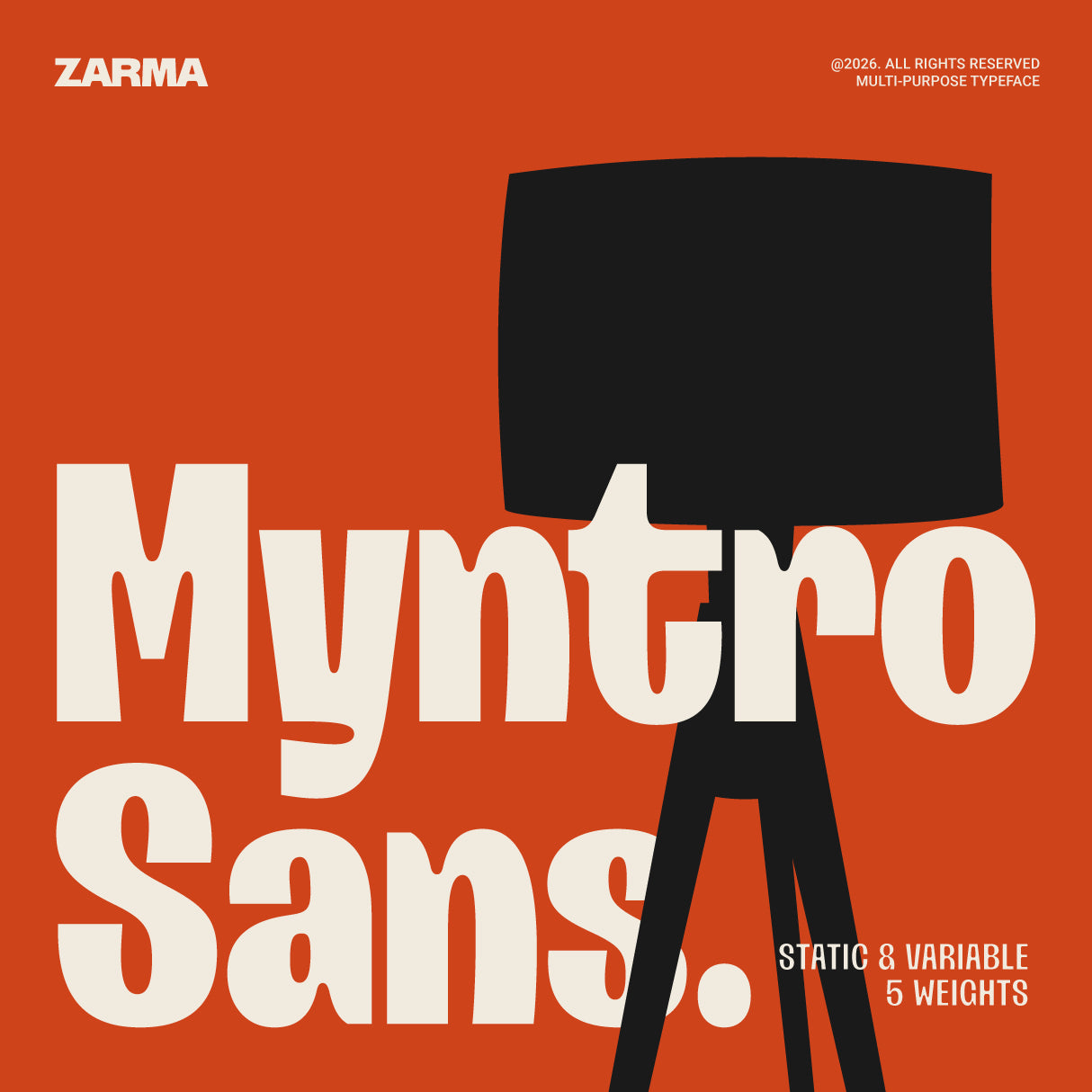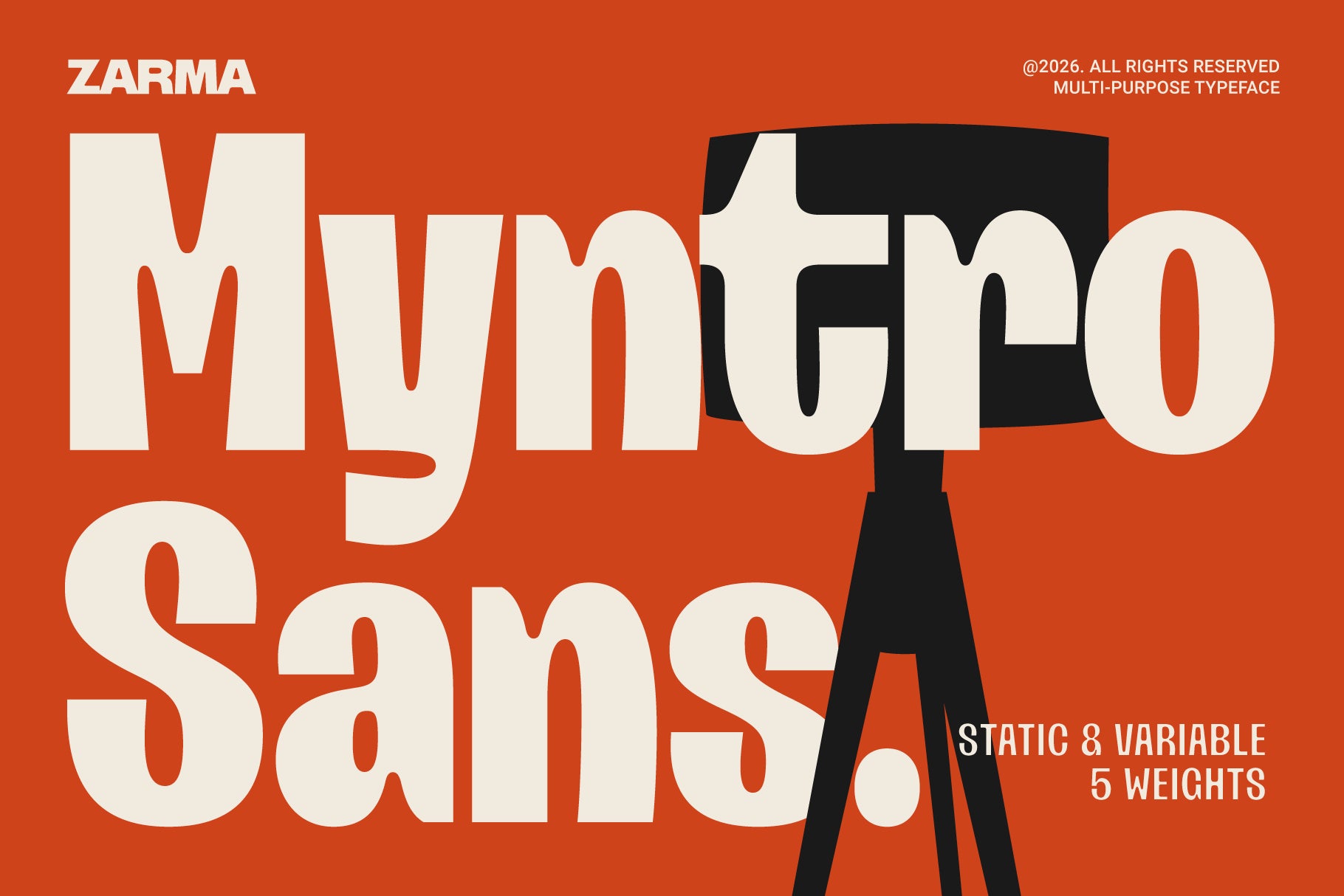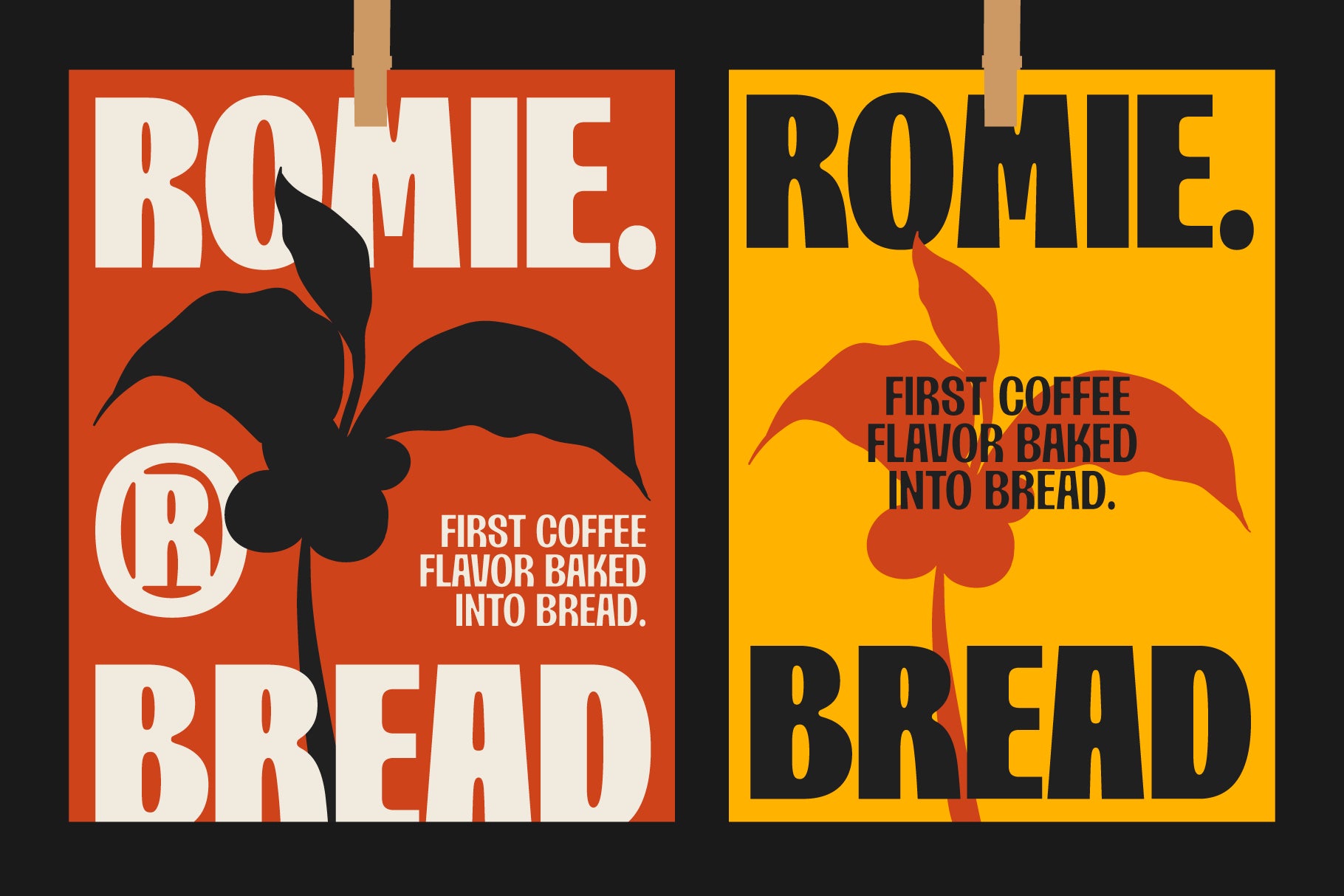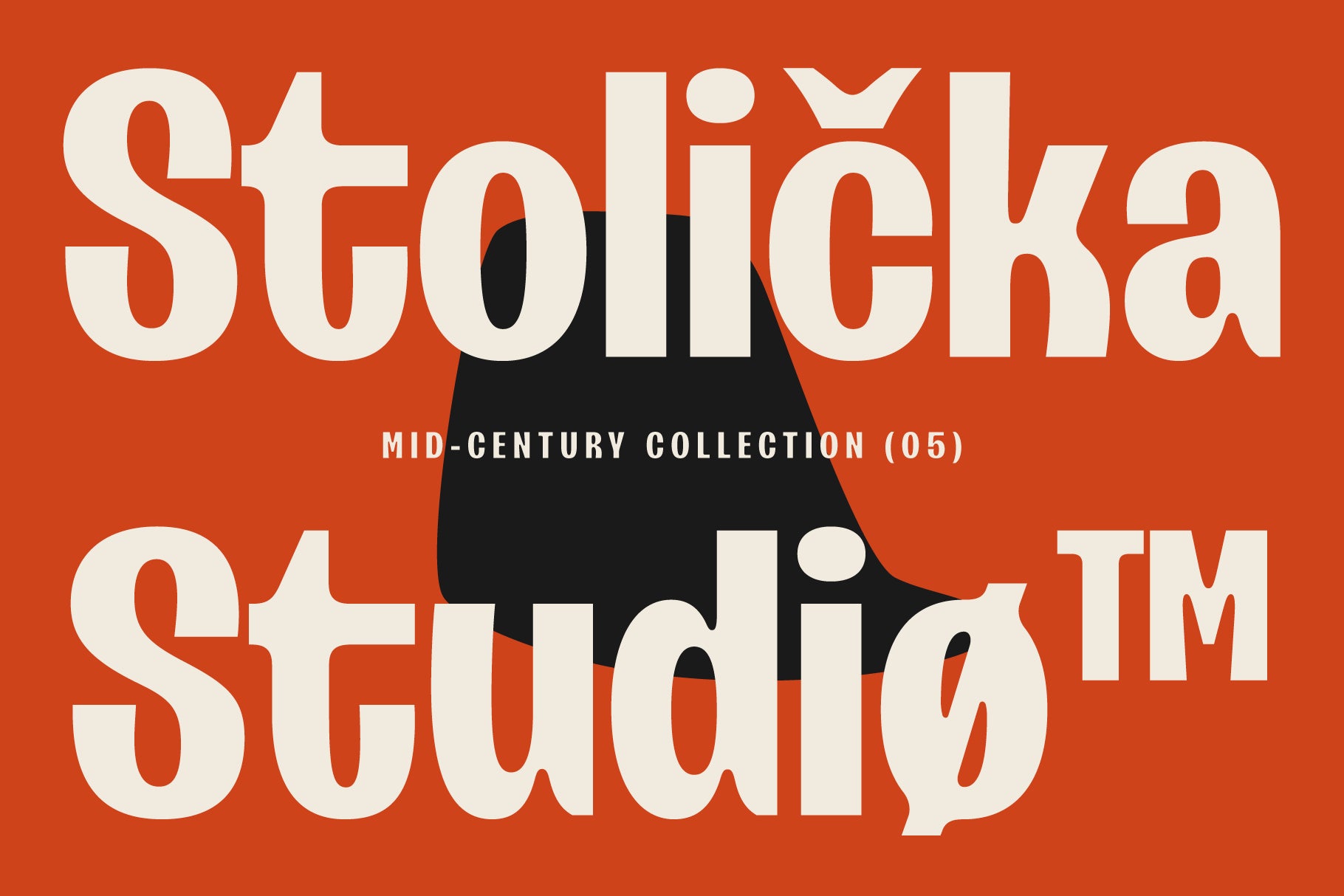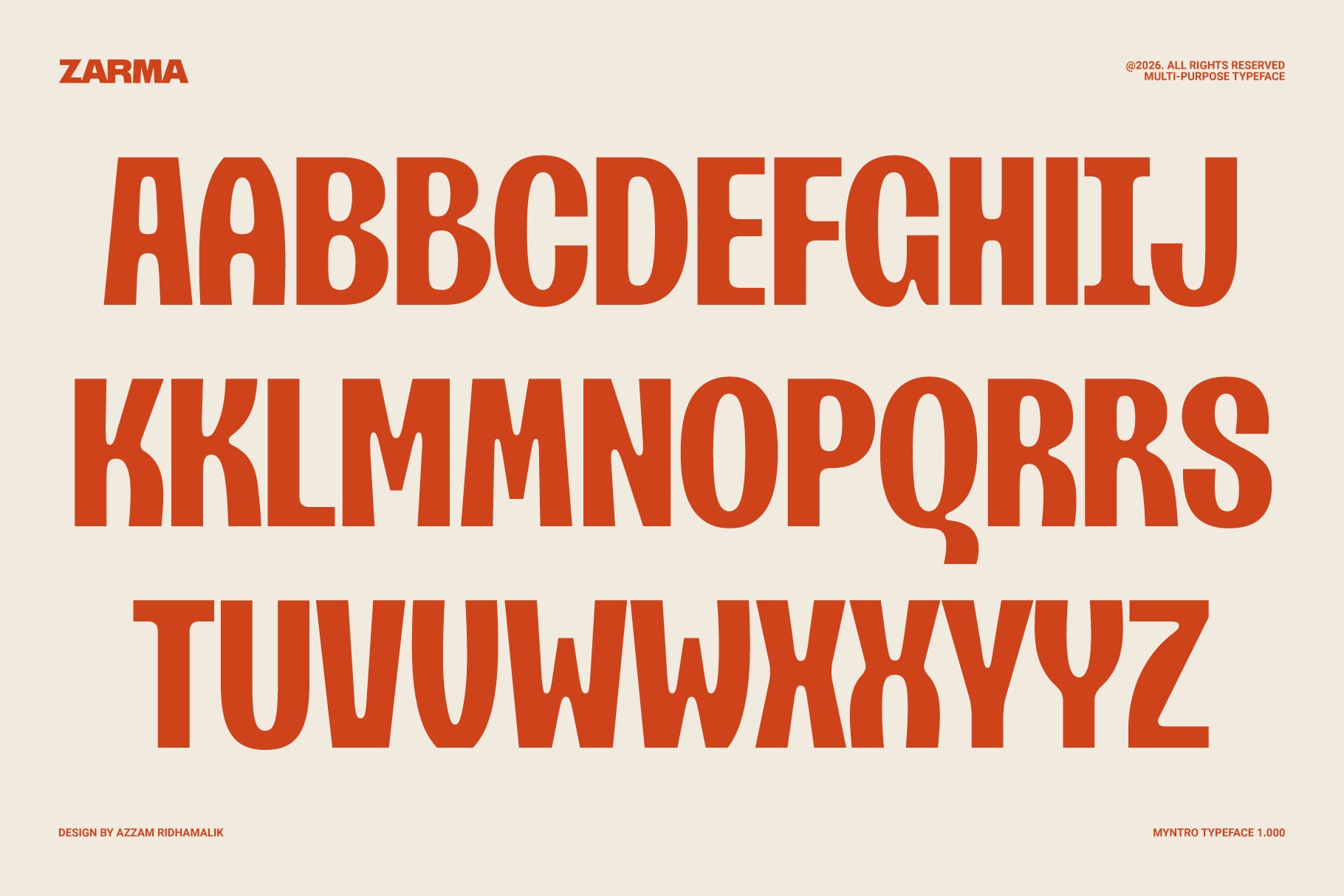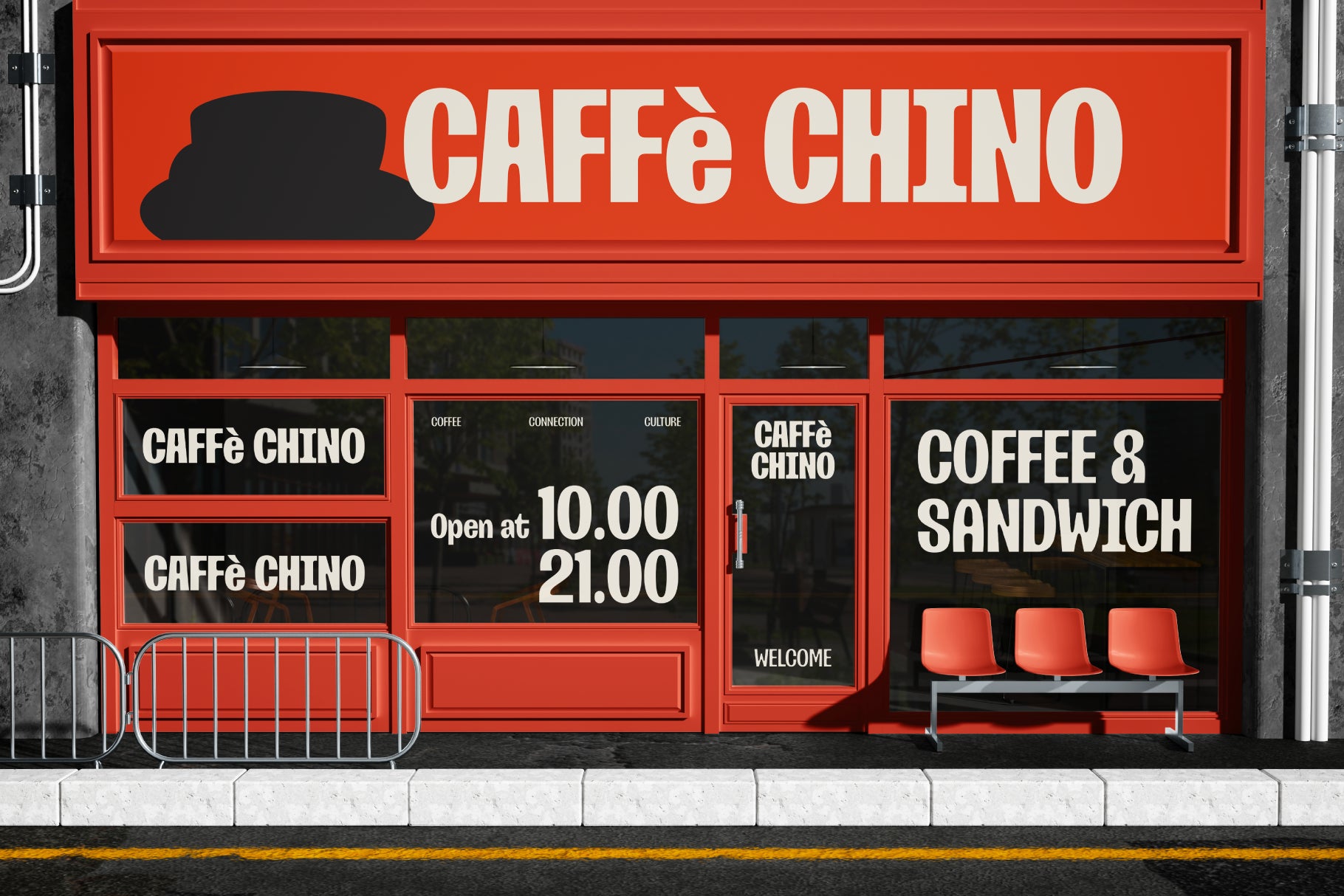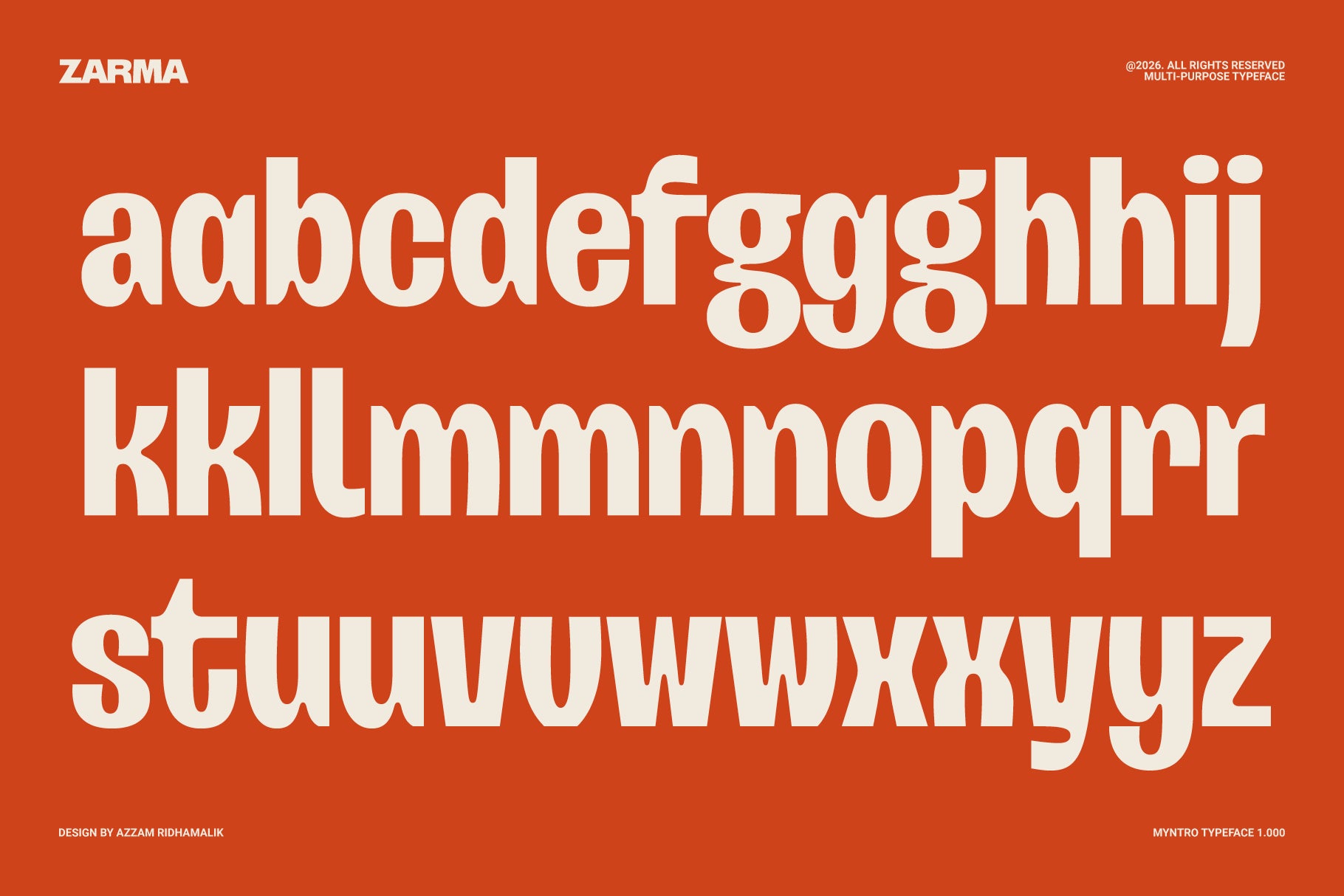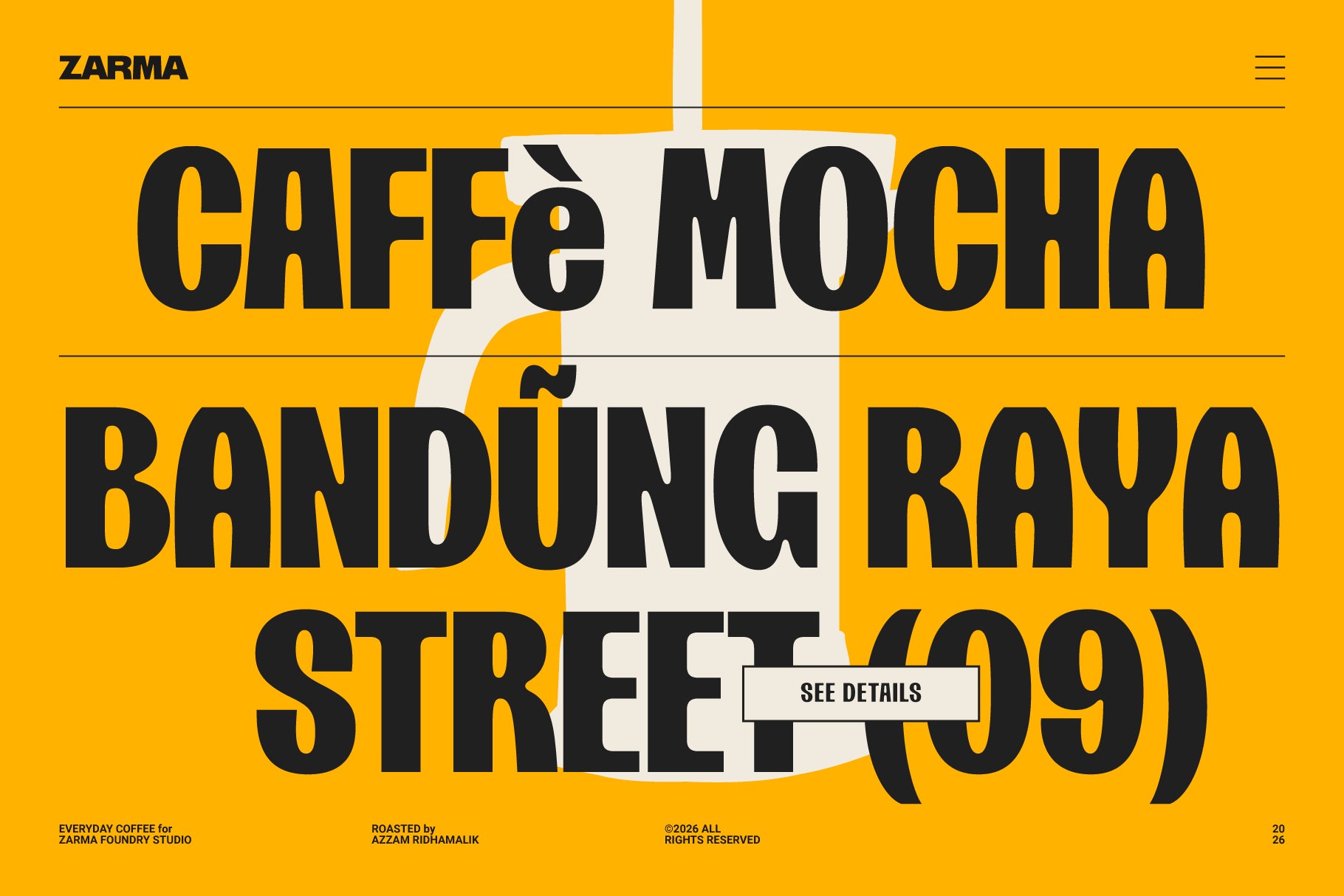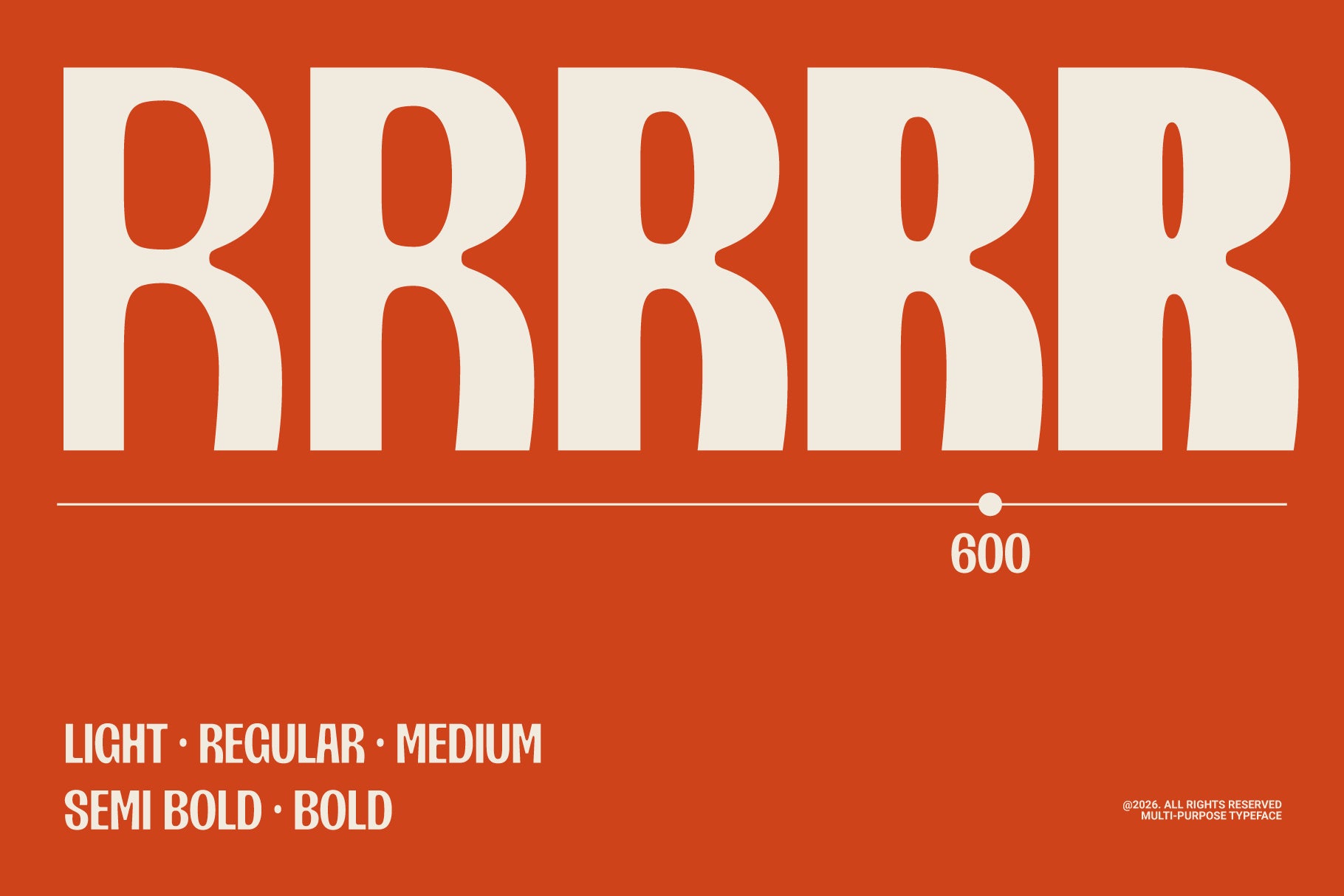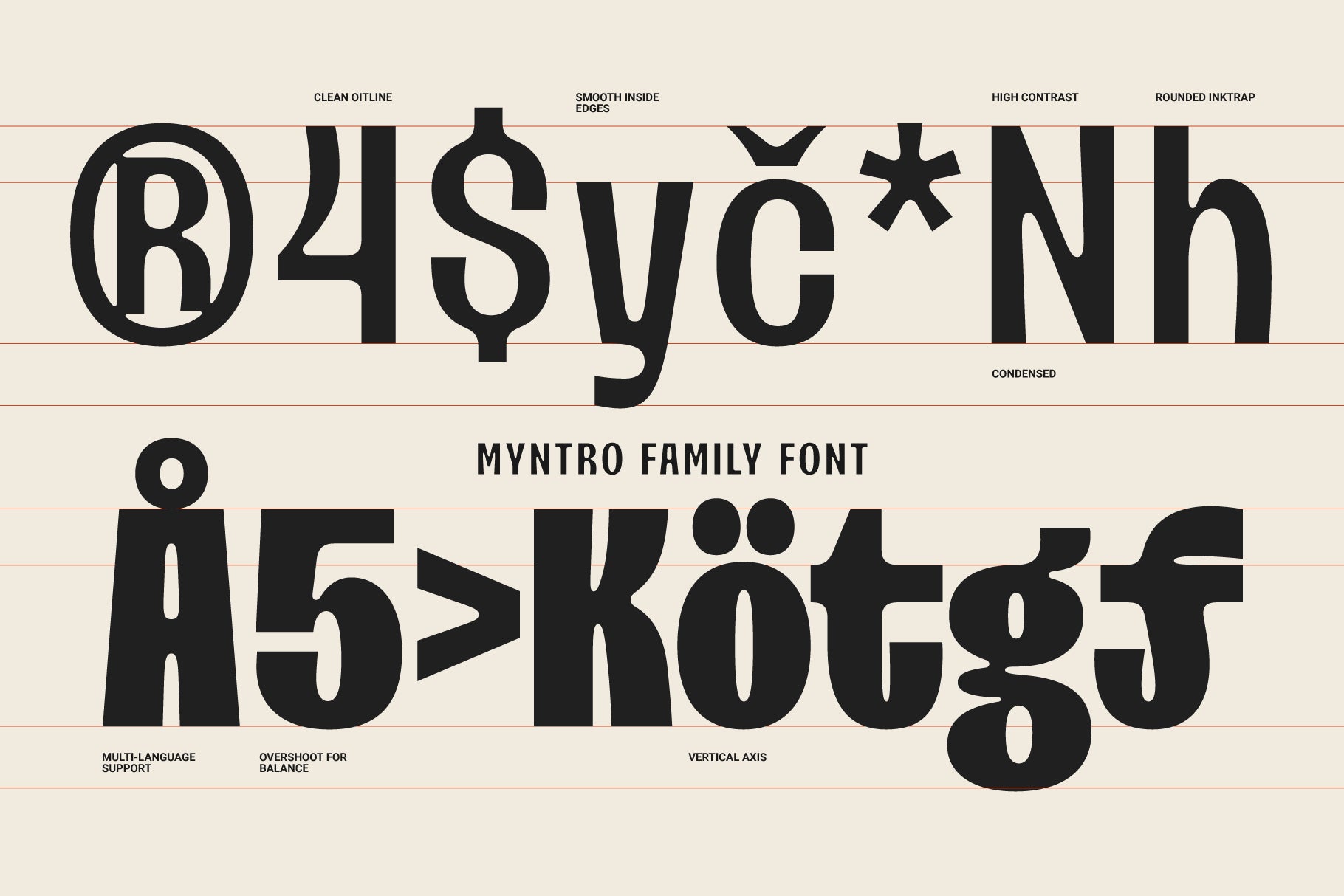
Myntro Family Font
Myntro Sans is a bold Condensed Sans Serif display typeface built for designers who want to make a strong visual statement. With its retro-industrial character, clean geometry, and confident proportions, it excels in branding, posters, packaging, editorial layouts, signage, logo design, and social media graphics. Available in 5 weights—Light, Regular, Medium, Semi Bold, and Bold—plus a Variable Font, Myntro Sans offers the flexibility to create powerful hierarchy and seamless weight transitions within a single modern type family.
Designed for professional workflows, Myntro Sans includes OpenType Alternates, Ligatures, Multilingual Support, and PUA Encoded Characters for maximum creative control. The family comes with 20 static font files in OTF, TTF, WOFF, and WOFF2 formats, along with 1 Variable Font supporting the weight axis, making it fully optimized for print, web, and digital applications with a bold contemporary presence.
Myntro Family Font is a bold condensed sans serif display typeface available in five weights—Light, Regular, Medium, Semi Bold, and Bold—along with a Variable Font. It includes OpenType Alternates, Ligatures, Multilingual Support, and PUA Encoded Characters, and comes with 20 static font files in OTF, TTF, WOFF, and WOFF2 formats, optimized for print, web, and digital applications.